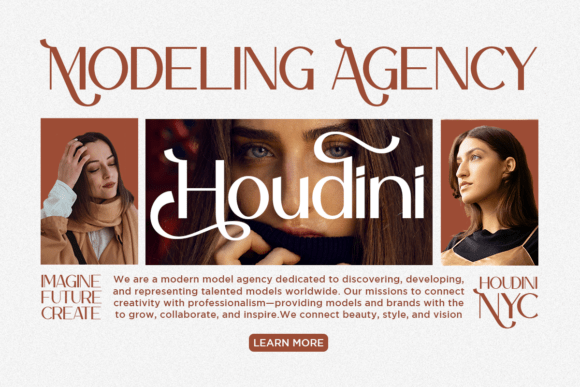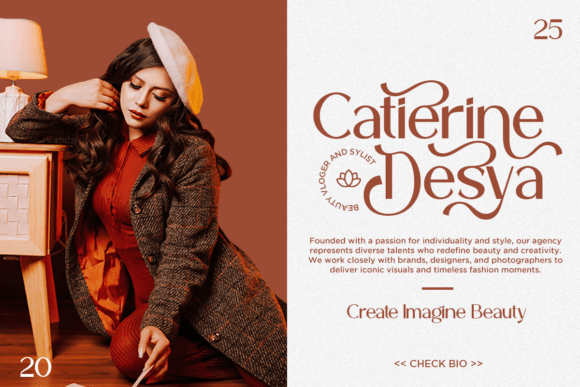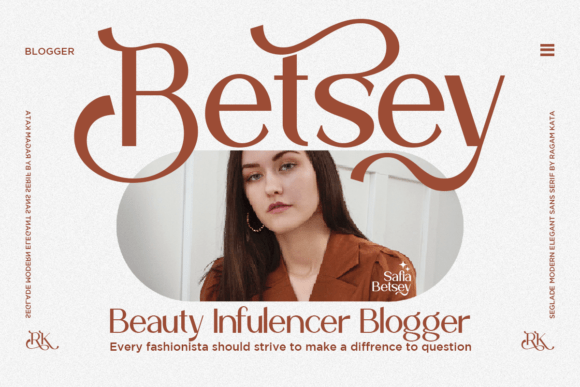
Introduction to Seglade Font
Seglade is a modern elegant serif typeface that blends sophistication with expressive curves.
Designed for high-end branding, editorial layouts, fashion logos, and luxury packaging, Seglade offers both Regular and Italic styles for versatile design needs Its refined swashes and contemporary letterforms make it perfect for designers seeking timeless elegance and modern flair.
Key Features of Seglade Font
Why Choose Seglade Font?
Seglade Font offers exceptional quality and versatility, making it a valuable addition to your design toolkit. Whether you’re creating for personal projects or commercial use, Seglade Font delivers professional results.